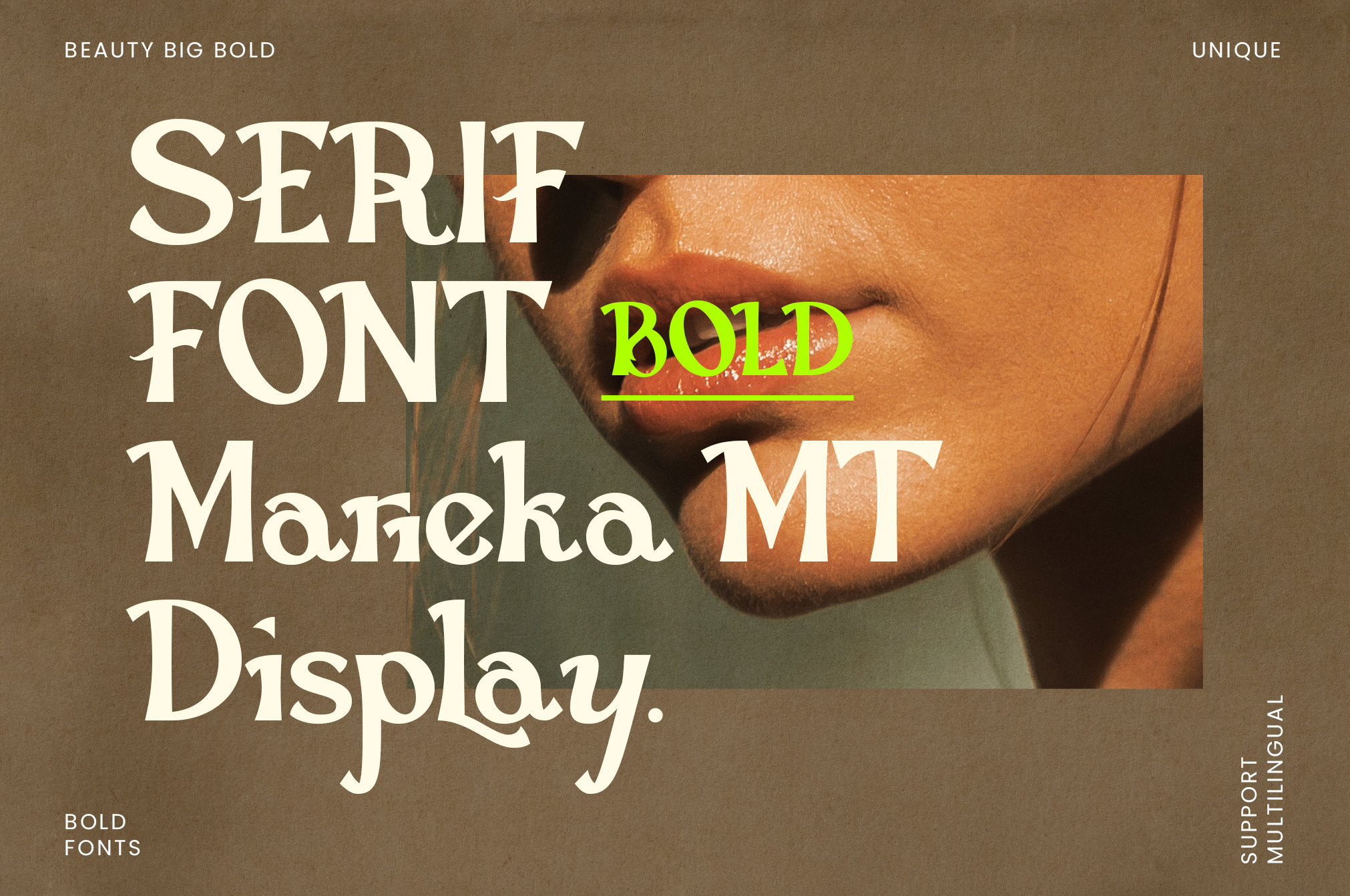
Marieka Mt Display Font
Marieka Mt is a classic and modern serif font. It is defined by smooth curves and is perfect for fashion branding or editorial designs. Use this font for your designs and explore its endless possibilities.Files included: • Marieka Mt(ttf, otf and woff)